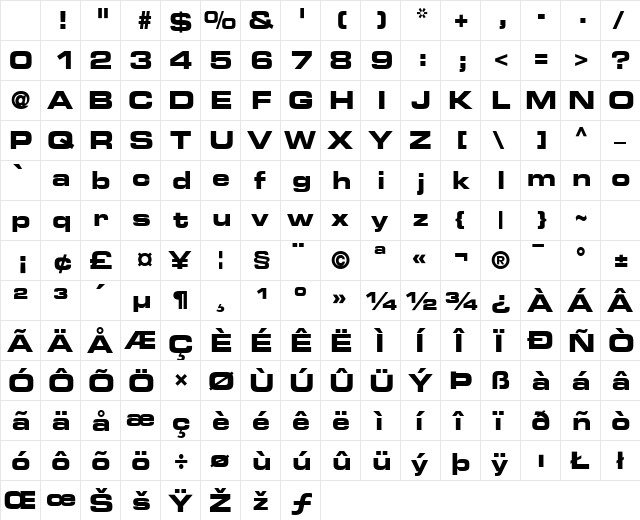
Complete Palindrome Expanded SSi Bold Expanded glyph index. Displaying only characters natively supported by Palindrome Expanded SSi Bold Expanded font.
Palindrome Expanded SSi is a composed and adaptable typeface that performs quietly and consistently across a wide range of design contexts. Its bold stroke weight gives it real presence on the page.